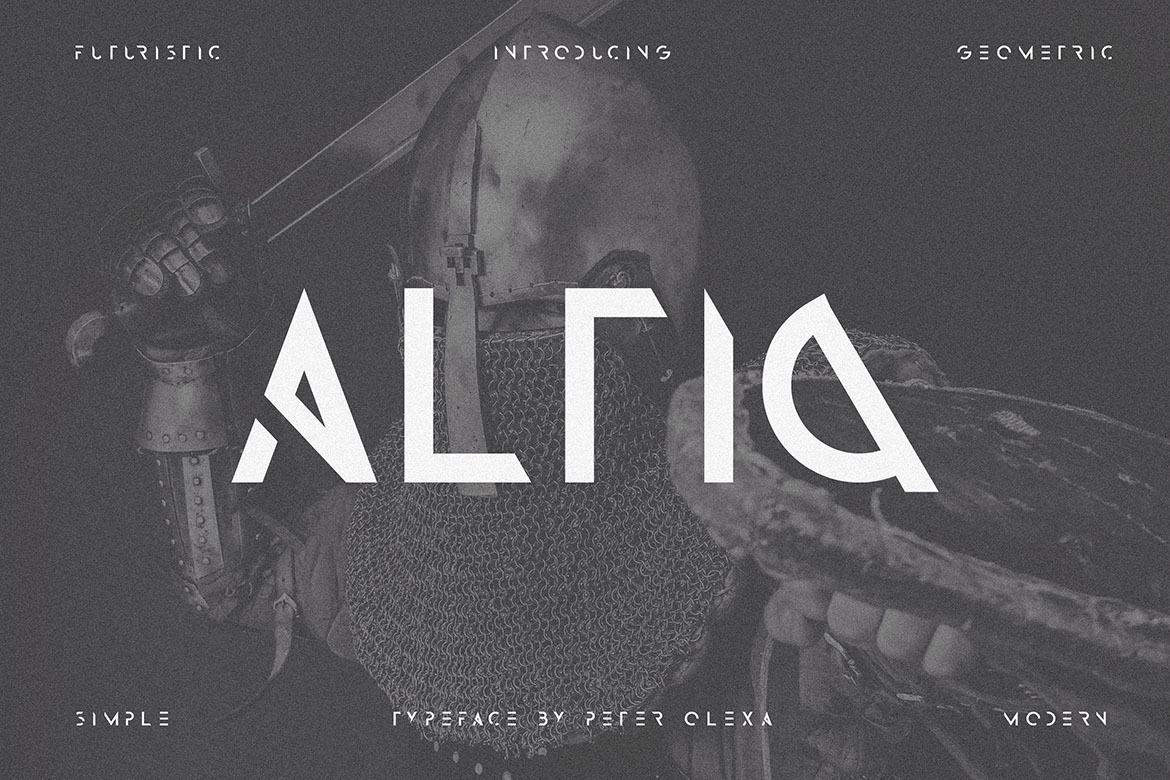
Altiq - Futuristic Font
Creative, futuristic, geometric, modern & minimalist font for your new projects. With sharp or geometric style. Great for modern or futuristic projects.
- Great for modern & futuristic branding projects